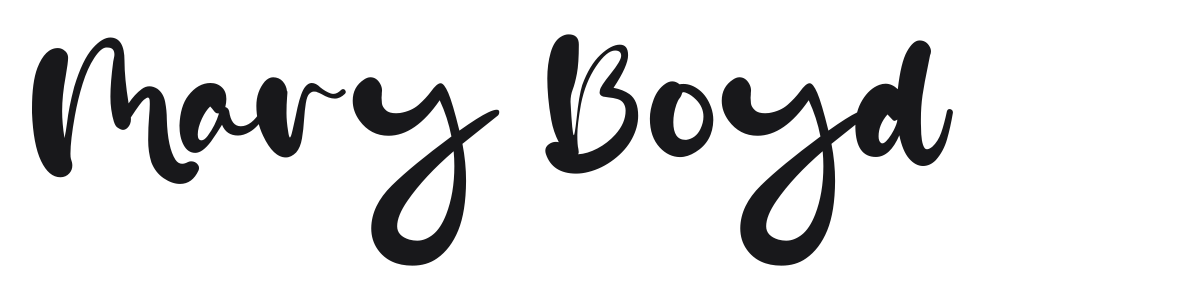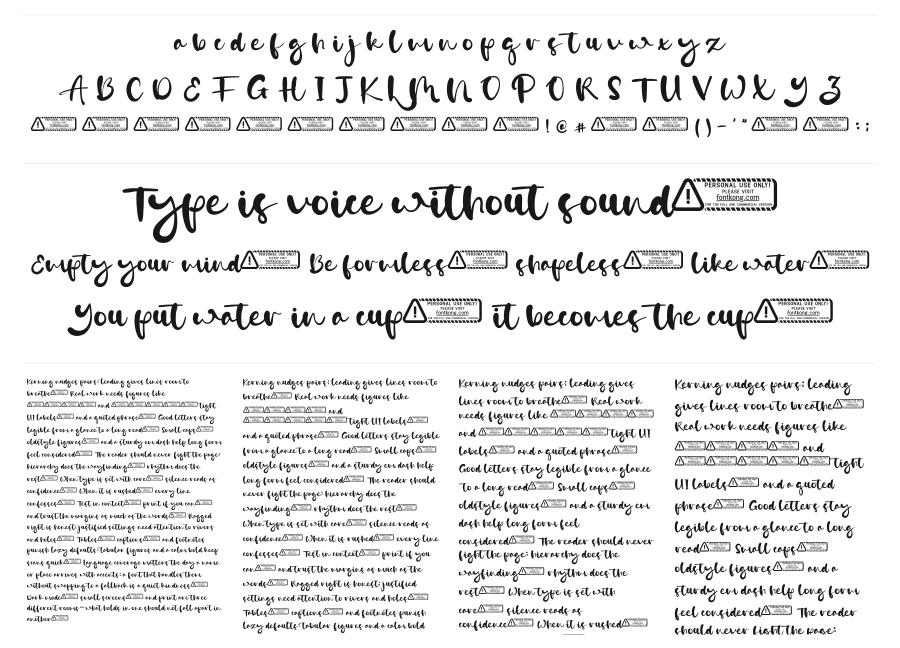
Mary Boyd
Mary Boyd is a contemporary casual brush script with expressive stroke contrast and a natural ink-brush energy. The letters flow together with confident, sweeping connections and a lightly bouncing baseline that feels genuinely handwritten rather than constructed. It carries the warmth of hand lettering without sacrificing legibility at display sizes.